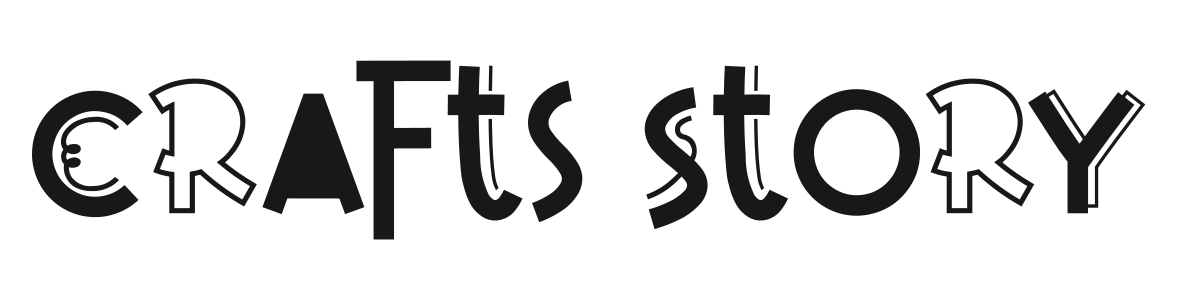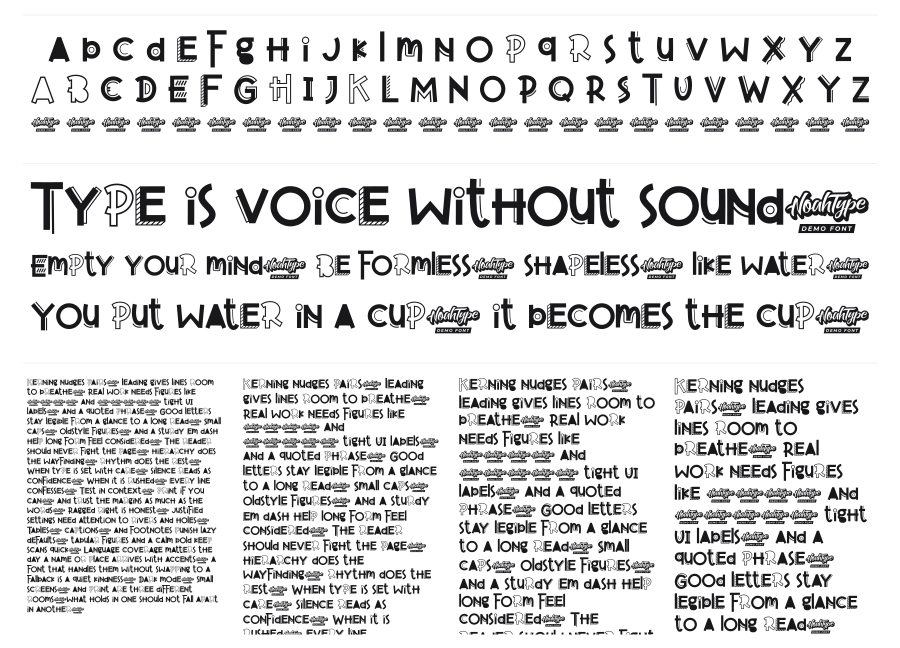
Crafts Story
Crafts Story is a novelty display font where every character wears a different costume. Some letters are solid black, others are outlined, hatched, or decorated with geometric patterns, giving the whole word a scrapbook collage feel. It suits projects that want to feel handmade, craft-market, or charmingly chaotic.